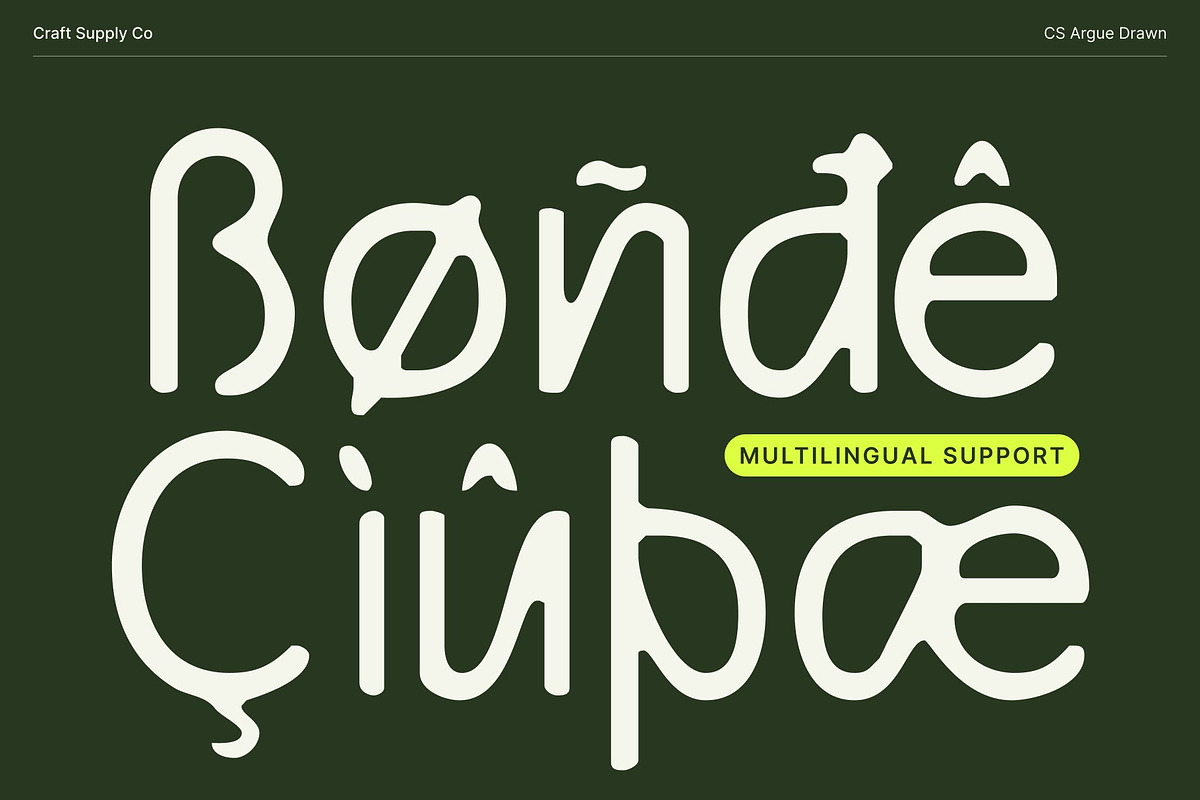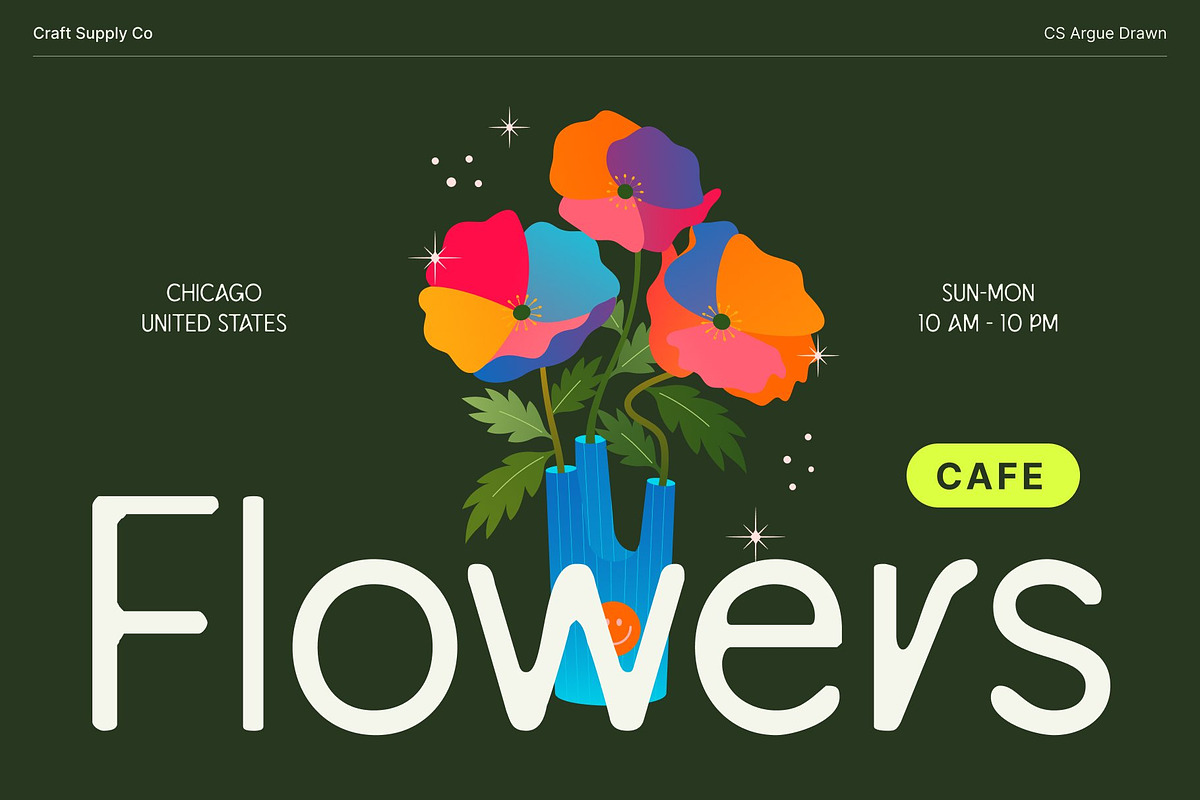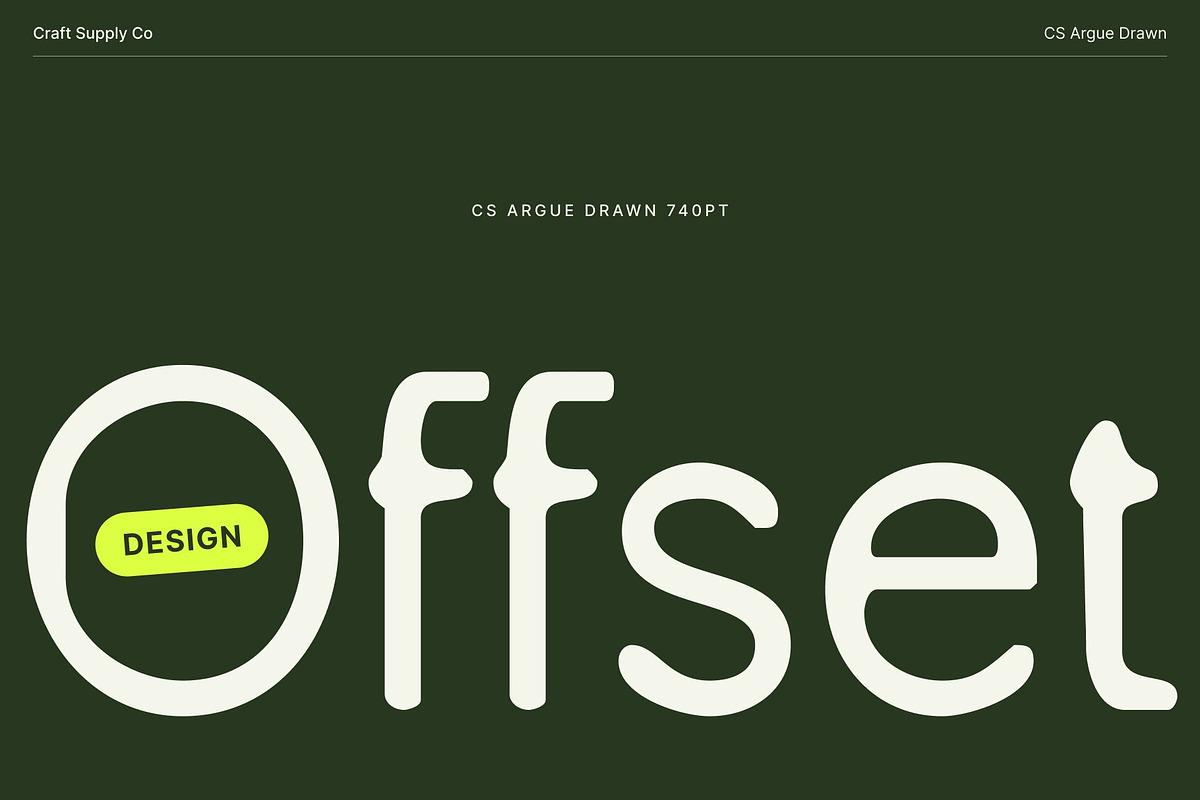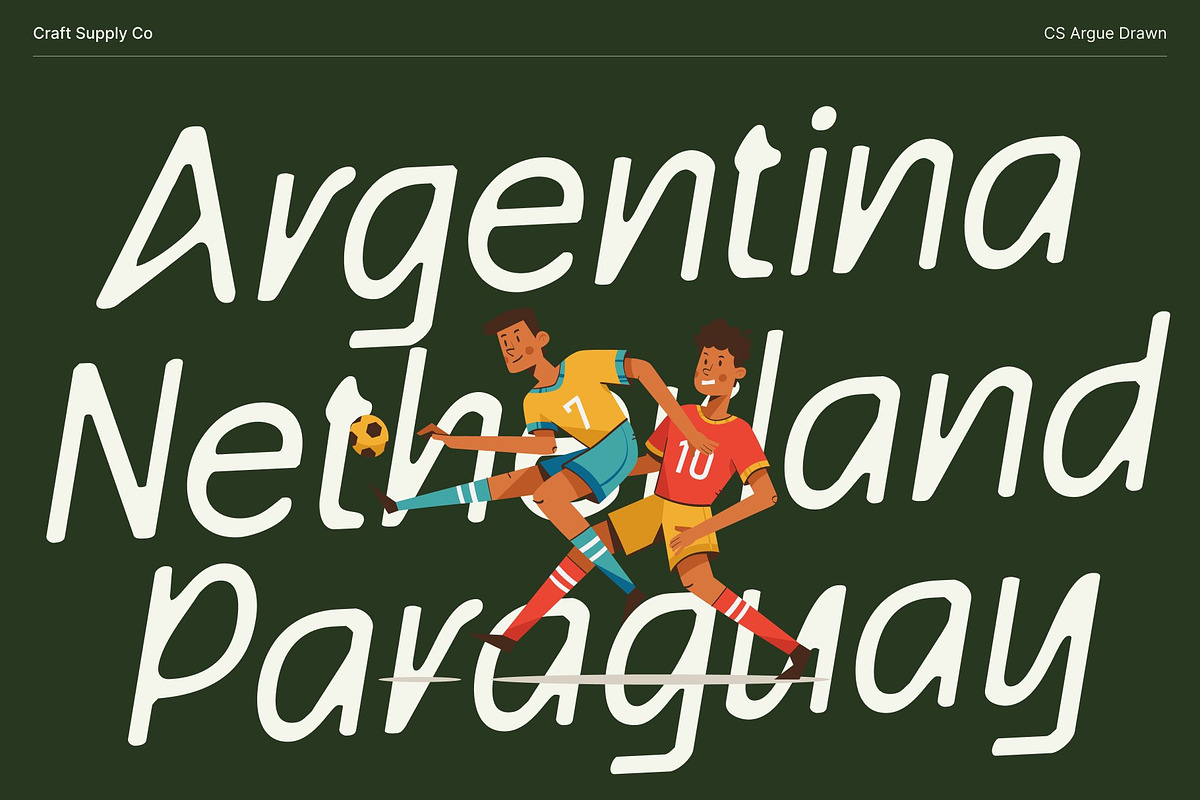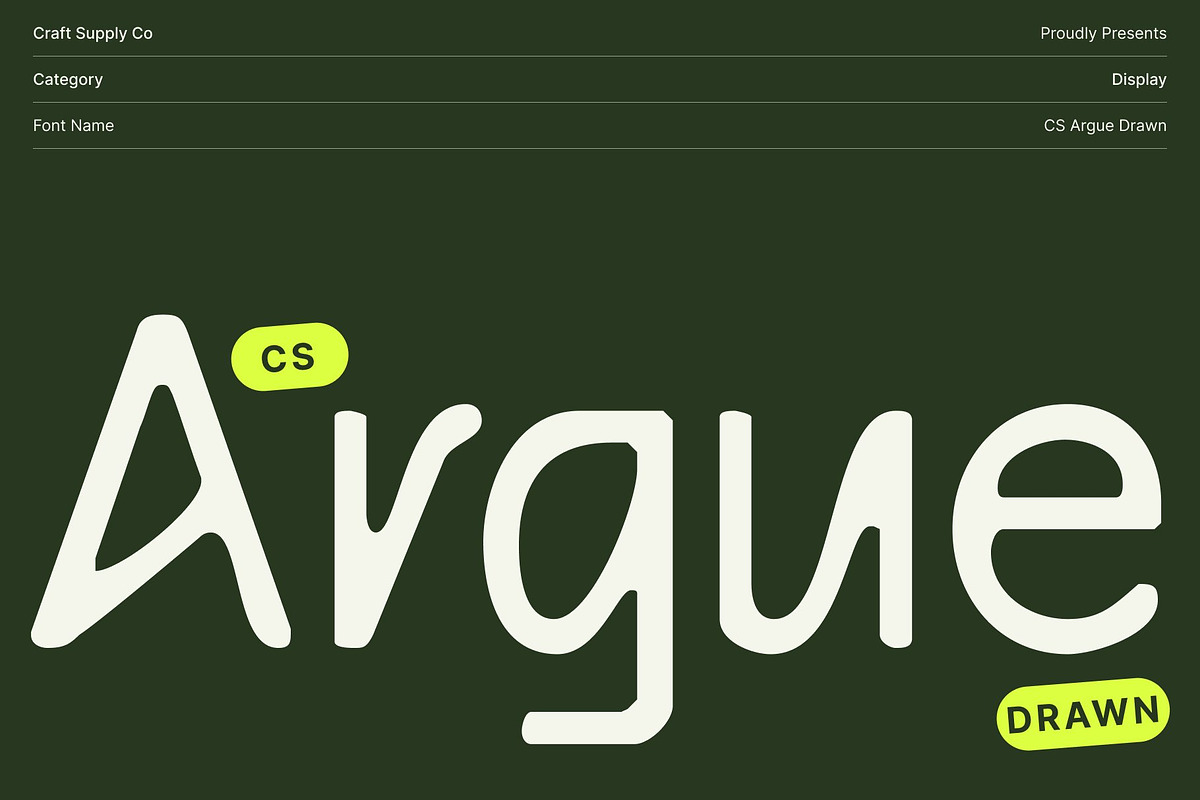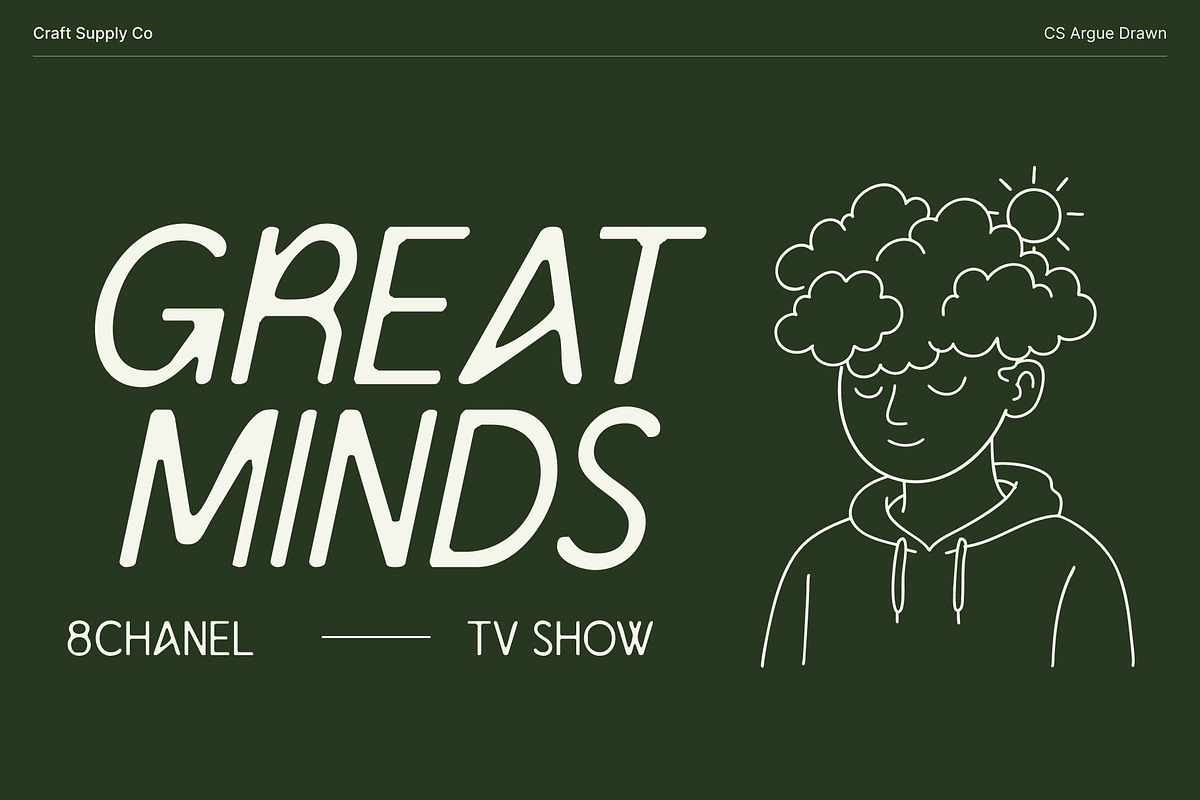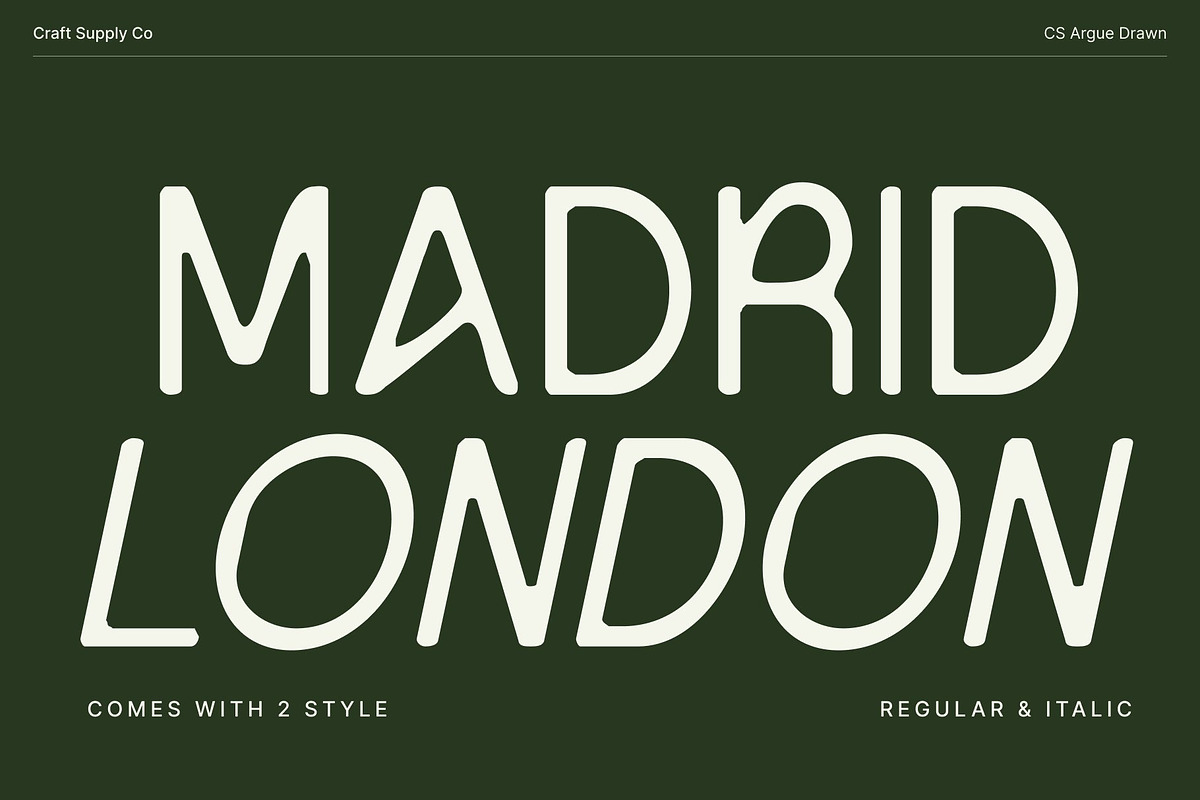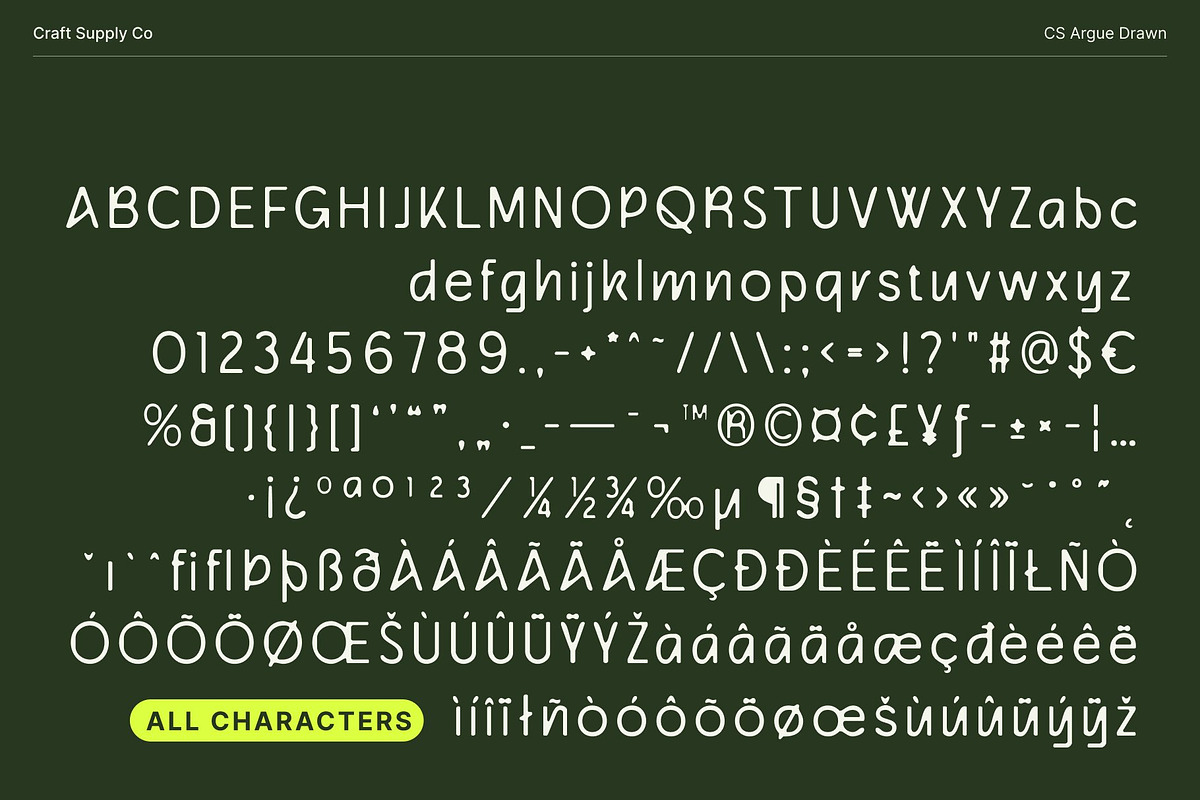
CS Argue Drawn
CS Argue Drawn – Modern Simplicity with Quirky Expression
Modern Sans Serif Font with Experimental Character This is a modern sans serif font that blends clean structure with quirky, experimental design elements. Built on a contemporary foundation, it introduces playful proportions and unexpected details that give the typeface a distinctive personality. Enhanced with a drawn effect, the font gains a handmade, artistic texture that softens its modern edge and adds expressive character.
Quirky Details with Clean, Handcrafted Construction What sets this font apart is its subtle quirks woven into a clean, minimalist framework. Unique letter shapes, unconventional cuts, and thoughtful spacing create visual interest without sacrificing readability. The drawn finish adds organic imperfections and texture, making each character feel more human, and visually engaging while still polished.
Trendy Style with Artistic, Expressive Appeal This font captures a trendy aesthetic perfectly aligned with modern design culture. Its balance between simplicity, experimentation, and hand-drawn nuance makes it ideal for stylish, creative concepts. The drawn effect brings warmth and personality, helping designs feel expressive, and confidently contemporary across both digital and print media.
Perfect for Branding, Editorials, and Modern Creative Projects Designed for versatile modern use, this font works beautifully in branding, visual identities, editorials, posters, and creative layouts. Its clean yet quirky character, paired with an artistic drawn texture, makes it especially effective for creative studios, lifestyle projects, and modern campaigns that want to stand out with originality and charm.